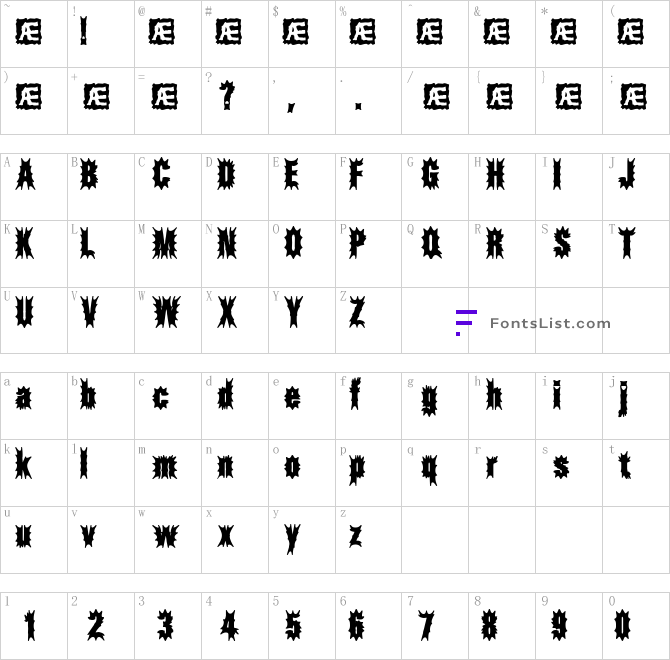
- Font Name:Aftermath BRK
Aftermath-BRK.ttf is a very beautiful artistic font, Aftermath-BRK.ttf is widely used in the design and printing of various books and pictures,Aftermath-BRK.ttf has a strong visual impact,Aftermath-BRK.ttf is a commonly used font in newspapers, magazines and books, and is used in posters, e-commerce Poster design, store design, logo design, font design and other fields.Aftermath-BRK.